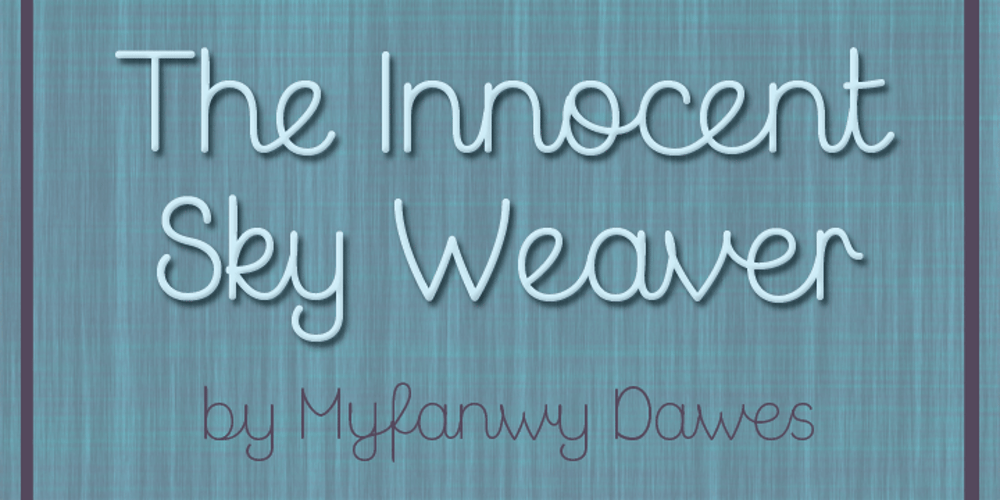
Cursive Script Font Family was designed by Tanya Davis and published by Scrowleyfonts. Cursive Script contains 2 styles and family package options. Cursive Script is a digital handwriting font. It is slightly different from many other handwriting fonts as it is designed to be regular and highly legible. As such it is clearly a digital font, inspired and informed by natural handwriting rather than attempting to emulate it. It contains 697 glyphs, mostly lower case alternates to ensure natural, flowing script. It also has stylistic alternates for many lower case letters, particularly those with ascenders and descenders.